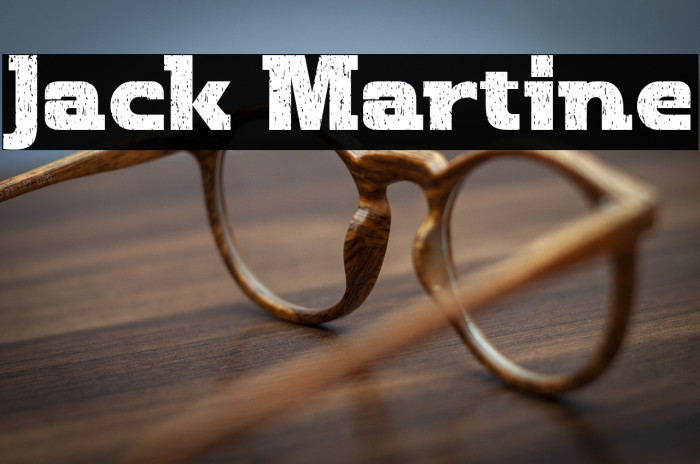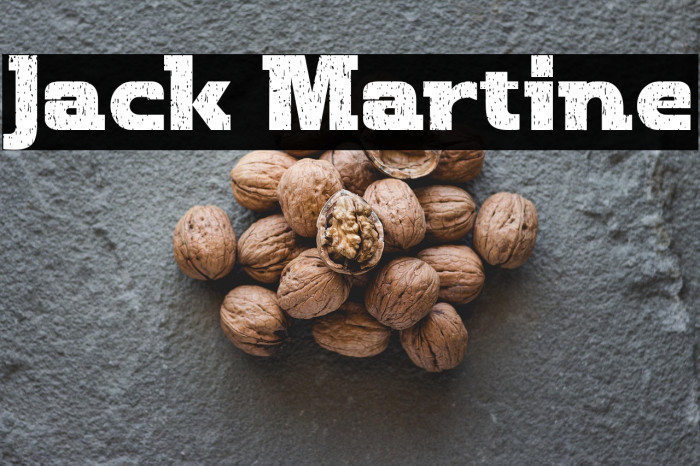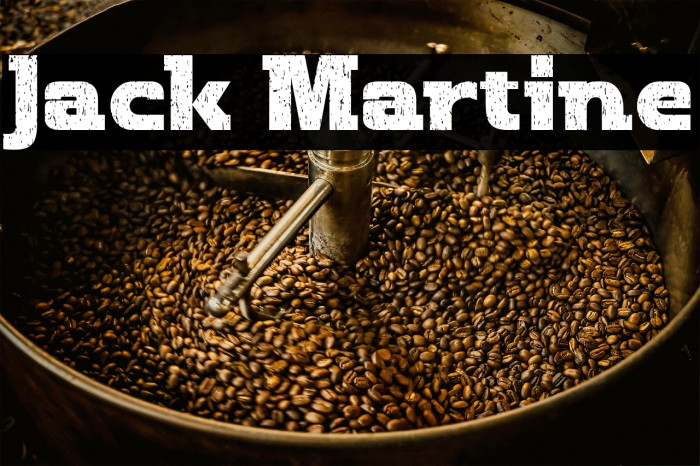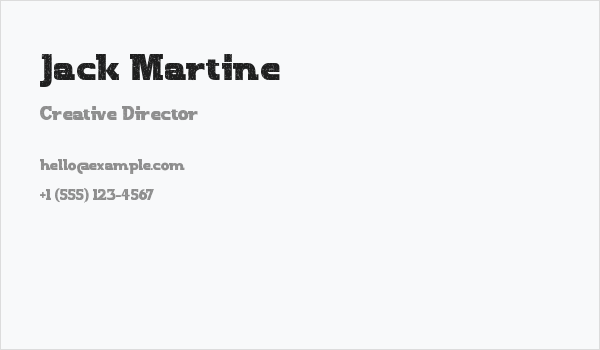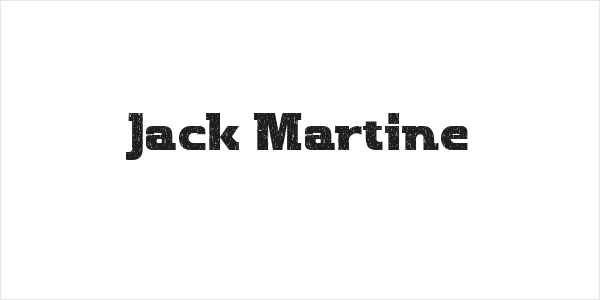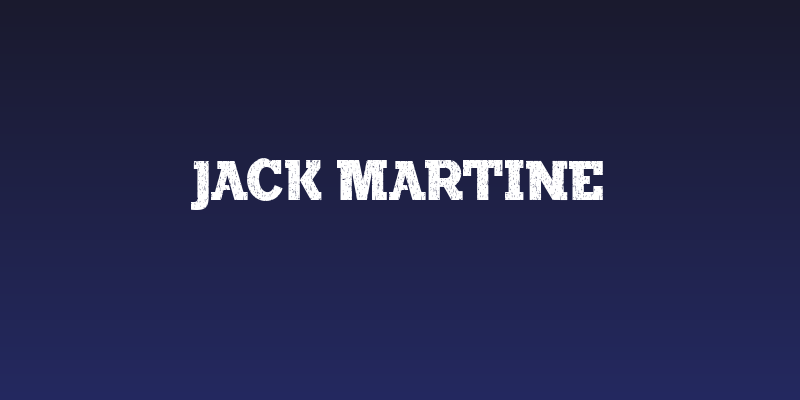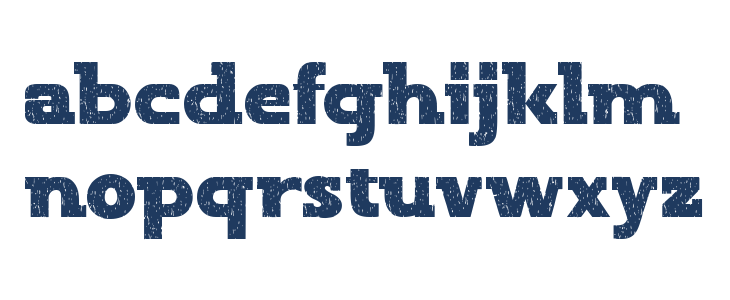
Jack Martine Font
Jack Martine Description
This font features a bold, distressed style with a textured appearance that gives it a rugged and vintage feel. The uppercase and lowercase letters are uniformly bold, with a consistent weight throughout. The characters have a slightly condensed width, which adds to the compact and impactful look. The numbers and special characters maintain the same distressed texture, ensuring a cohesive appearance across all elements. The font's unique style makes it stand out, with a high level of contrast between the thick strokes and the textured details, adding depth and character.
| Use Case | Logos, Posters, Apparel Design |
| Proposed Projects | Ideal for vintage-themed posters, logos, apparel design, and branding projects that require a rugged and bold aesthetic. |